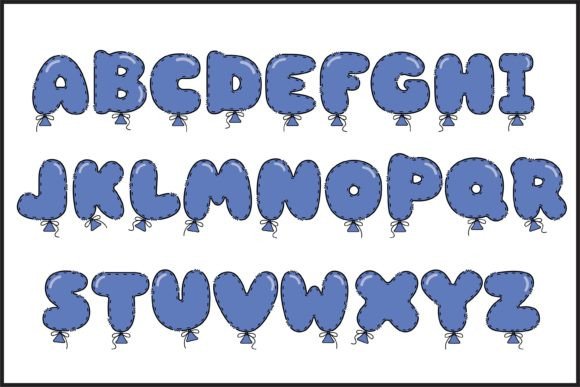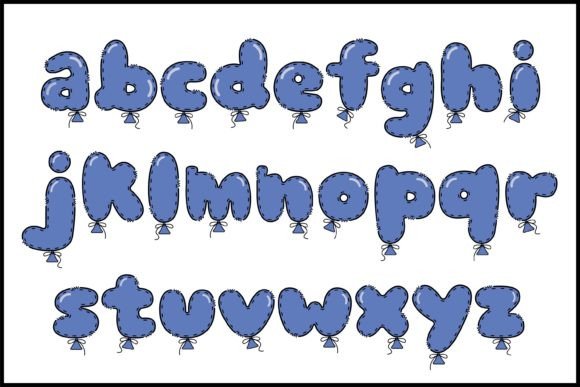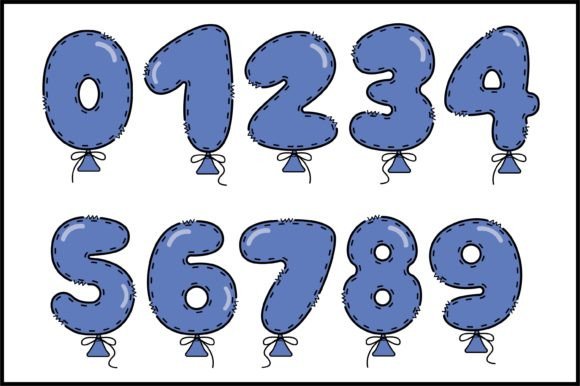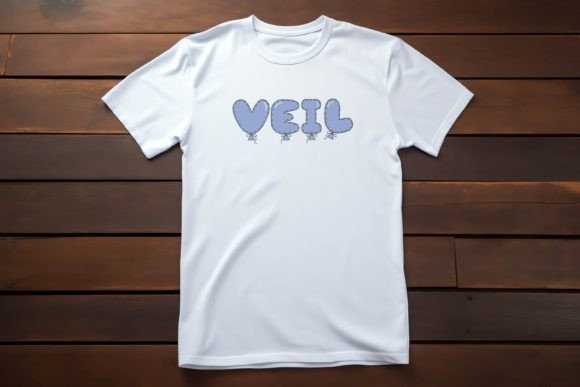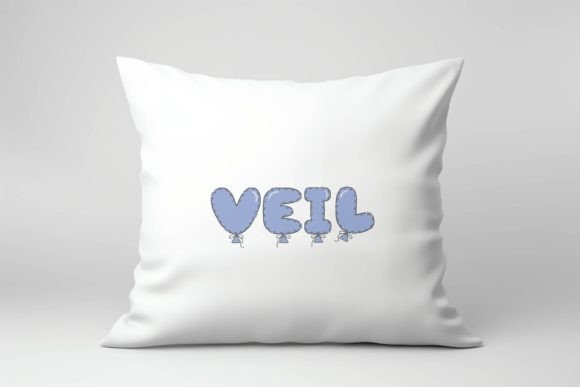
Active Fonts: Adding Playfulness and Artistry to Your Designs
Active fonts are a type of typography that exudes energy, playfulness, and creativity. These fonts are often used in designs that aim to convey a playful or artistic feel, such as children’s books, posters, invitations, greeting cards, and more. For instance, children’s books often utilize fonts that are whimsical, colorful, and easy to read, creating an engaging reading experience for young audiences.
The Characteristics of Active Fonts
Active fonts are known for their unique and distinctive characteristics, which set them apart from other types of fonts. Some common features of active fonts include:
- Bold and expressive lines: Active fonts often feature bold, expressive lines that add to their playful and energetic feel.
- Unconventional letterforms: Active fonts frequently incorporate unconventional letterforms, such as irregular shapes, rounded edges, and unusual flourishes.
- Vibrant colors: Active fonts often come in a range of vibrant colors, which can add a pop of personality to any design.
- Texture and patterns: Some active fonts feature textures and patterns, such as glitter, polka dots, or stripes, which can add an extra layer of visual interest.
Uses of Active Fonts in Design
Active fonts can be used in a wide range of design applications, from children’s books and educational materials to posters, invitations, and greeting cards. Some popular uses of active fonts include:
- Children’s books: Active fonts are a natural fit for children’s books, where they can help create a fun and engaging reading experience.
- Posters and flyers: Active fonts can add a playful touch to posters and flyers, making them more eye-catching and attention-grabbing.
- Invitations and greeting cards: Active fonts can add a personal and creative touch to invitations and greeting cards, making them more special and memorable.
- Social media graphics: Active fonts can be used to create engaging and shareable social media graphics, such as quote graphics, memes, and infographics.
Tips for Using Active Fonts Effectively
While active fonts can be a great addition to any design, they can also be overwhelming if not used effectively. Here are some tips for using active fonts:
- Use them sparingly: Active fonts can be attention-grabbing, but they can also be overwhelming if overused. Use them sparingly to create visual interest and emphasis.
- Pair them with neutral fonts: Pair active fonts with neutral fonts, such as serif or sans-serif fonts, to create contrast and visual interest.
- Consider the audience: Active fonts may be more suitable for certain audiences, such as children or young adults, than others.
- Experiment with colors and textures: Active fonts can be even more effective when paired with vibrant colors and textures.
Popular Active Fonts for Designers and Crafters
If you’re looking to incorporate active fonts into your designs, here are some popular options:
| Font Name | Active Font |
| Author | Veil |
Active fonts are a great way to add playfulness and artistry to your designs. With their bold and expressive lines, unconventional letterforms, vibrant colors, and textures, active fonts can help create engaging and memorable designs. By using active fonts effectively and pairing them with neutral fonts, designers and crafters can create a wide range of designs that are sure to capture the attention of their audience.